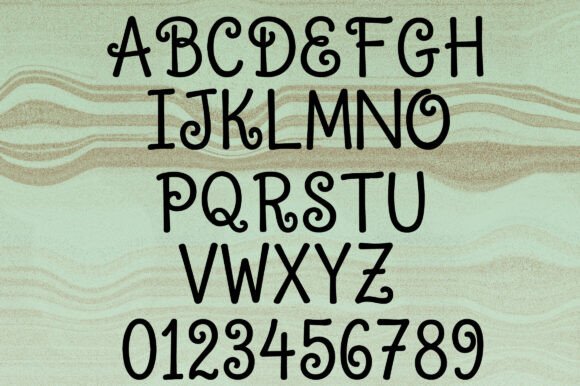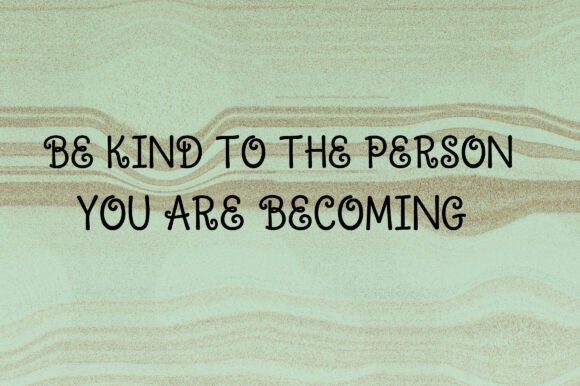
Introducing Good Energy Font: A Playful and Cheerful Display Font
Are you tired of using the same old fonts for your design projects? Look no further! Good Energy Font is a fresh and exciting addition to the world of typography. This playful decorative display font is perfect for designers and crafters who want to add a touch of whimsy and personality to their work.
What Makes Good Energy Font Special?
Good Energy Font boasts tall, clean letterforms with charming swirl details that give it a unique and handmade feel. Its whimsical style is both friendly and cheerful, making it ideal for a variety of design projects. Whether you’re working on a quote, branding campaign, poster, craft, or any other joyful design project, Good Energy Font is the perfect choice.
Key Features of Good Energy Font
- Playful and decorative: Good Energy Font is a display font that’s designed to make a statement. Its playful and decorative style is perfect for adding a touch of personality to your design projects.
- Tall and clean letterforms: The font features tall, clean letterforms that are easy to read and visually appealing.
- Charming swirl details: The swirl details in Good Energy Font add a touch of whimsy and handmade charm to your designs.
- Whimsical and friendly: The font’s whimsical style is both friendly and cheerful, making it perfect for design projects that require a playful touch.
Use Cases for Good Energy Font
Good Energy Font is a versatile font that can be used for a variety of design projects. Here are some use cases to get you started:
- Quotes: Use Good Energy Font to add a touch of personality to your quotes. The font’s playful style is perfect for social media posts, blog articles, and other quote-based designs.
- Branding: Good Energy Font is a great choice for branding campaigns that require a playful and creative touch. Use it to create logos, business cards, and other marketing materials that reflect your brand’s personality.
- Posters: The font’s tall, clean letterforms and charming swirl details make it perfect for poster design. Use Good Energy Font to create eye-catching posters for events, promotions, and other marketing campaigns.
- Crafts: Good Energy Font is a great choice for crafters who want to add a personal touch to their projects. Use it to create handmade cards, gift tags, and other crafty designs.
- Joyful design projects: Whether you’re working on a design project for a children’s book, a kids’ party, or a fun event, Good Energy Font is the perfect choice.
Why Choose Good Energy Font?
With so many fonts to choose from, why should you choose Good Energy Font? Here are a few reasons:
- Unique and creative: Good Energy Font is a unique and creative font that’s sure to make your designs stand out.
- Easy to read: Despite its playful style, Good Energy Font is easy to read and visually appealing.
- Versatile: The font can be used for a variety of design projects, from quotes and branding to posters and crafts.
- Fun and playful: Good Energy Font is the perfect choice for designers and crafters who want to add a touch of fun and playfulness to their designs.
In conclusion, Good Energy Font is a playful and cheerful display font that’s perfect for designers and crafters who want to add a touch of personality to their work. With its tall, clean letterforms, charming swirl details, and whimsical style, Good Energy Font is a versatile font that can be used for a variety of design projects. Whether you’re working on a quote, branding campaign, poster, craft, or joyful design project, Good Energy Font is the perfect choice. So why wait? Try Good Energy Font today and add a touch of fun and playfulness to your designs!